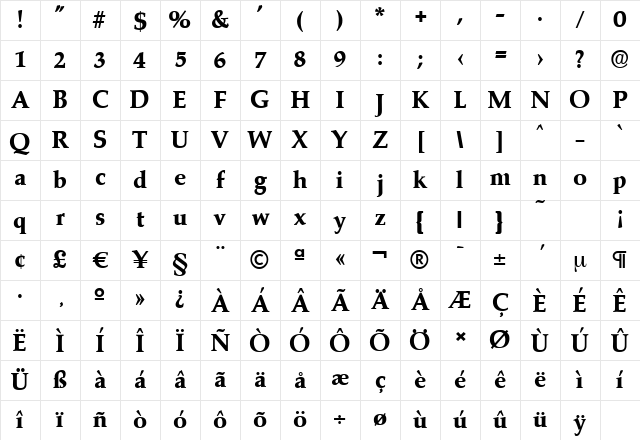
MarathonSerial-Xbold Regular
Complete MarathonSerial-Xbold Regular glyph index. Displaying only characters natively supported by MarathonSerial-Xbold Regular font.
Design Context for MarathonSerial-Xbold
MarathonSerial-Xbold is a composed and adaptable typeface that performs quietly and consistently across a wide range of design contexts. Its bold stroke weight gives it real presence on the page.
Pro Tip: Use MarathonSerial-Xbold in both headline and body roles to test its range before committing to a single application.